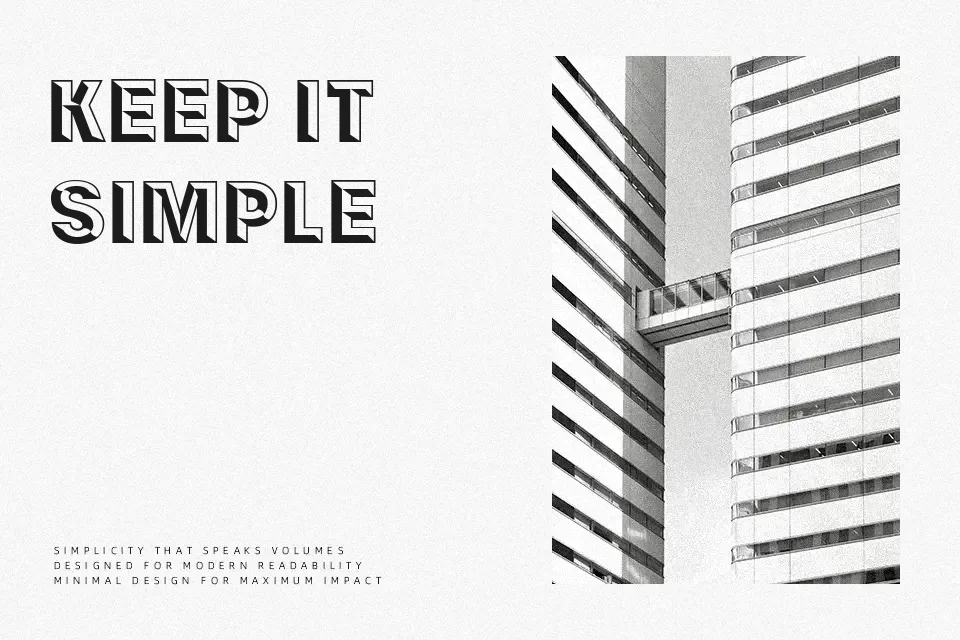
Race1 Brannt NCV Font
Designed by Fontry
Characterized by its commanding presence, Race1 Brannt NCV Font features robust structural foundations and distinctive chiseled strokes that immediately evoke a sense of speed. The letterforms are constructed with geometric precision, utilizing thick, heavy weights and tightly balanced spacing to maintain a continuous visual rhythm. These pronounced, convex details make the typeface incredibly effective for large sports headlines and dynamic automotive branding. The compact spacing helps maintain clarity in larger headlines, ensuring impactful legibility from a distance. However, the aggressive styling and intricate chiseled layers become a limitation at smaller sizes, where the inner details risk merging. Dense forms reduce comfort during extended reading, making this design far less suitable for continuous body text.
motorsport event posters
esports team branding
automotive apparel graphics
large stadium signage
extended editorial articles
corporate legal documents
dense data spreadsheets
Perfect for branding, gaming, and headline, with a bold and decorative style.